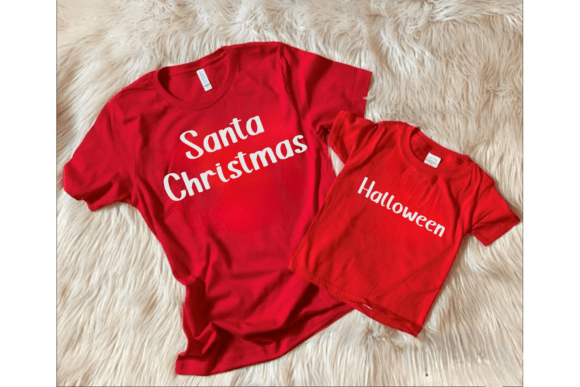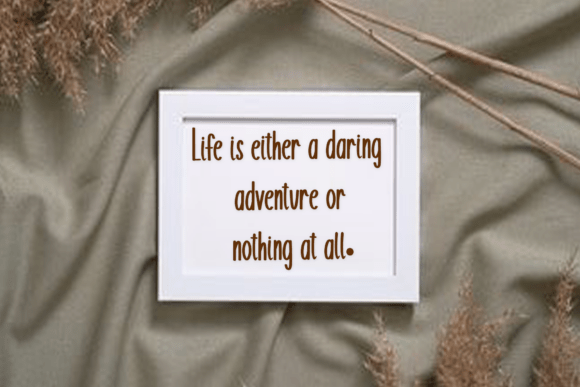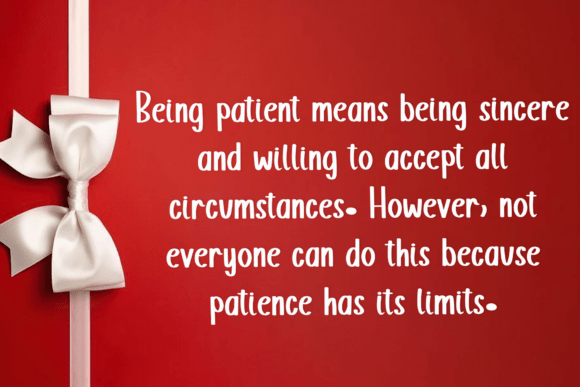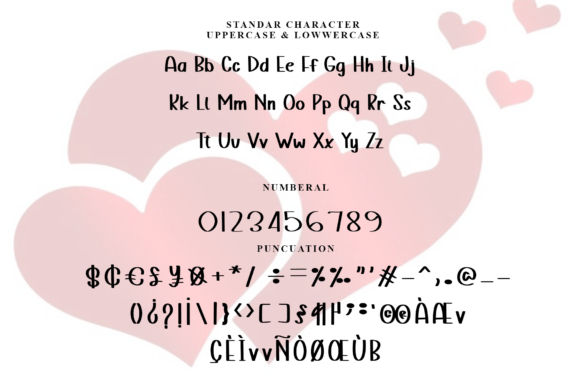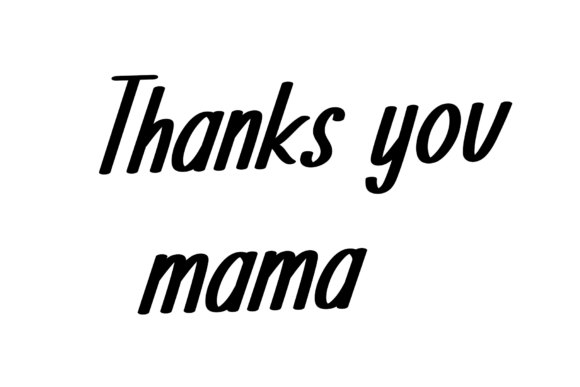
Introducing Boho Christmas Font: The Perfect Blend of Warmth and Personality
Are you looking for a font that can add a personal touch to your designs, invitations, and social media posts? Look no further than the Boho Christmas Font. This casual handwritten font is designed to radiate warmth and personality, making it perfect for designers, crafters, and anyone who wants to add a unique flair to their work.
The Charm of Authentic Handwriting
Boho Christmas Font features smooth strokes, natural curves, and easy-flowing letterforms that capture the charm of authentic handwriting. With its modern, approachable feel, this font is ideal for anyone who wants to add a personal and friendly touch to their designs. Whether you’re creating quotes, invitations, branding materials, or social media posts, Boho Christmas Font is the perfect choice.
Key Features of Boho Christmas Font
- Smooth Strokes: The font features smooth, flowing strokes that give it a natural and effortless look.
- Natural Curves: The curves in Boho Christmas Font are organic and authentic, adding to its handwriting-like feel.
- Easy-Flowing Letterforms: The letterforms are designed to flow easily into each other, creating a sense of movement and fluidity.
- Modern and Approachable: The font has a modern feel that’s approachable and friendly, making it perfect for a wide range of design applications.
Uses for Boho Christmas Font
Boho Christmas Font is a versatile font that can be used in a variety of design applications. Here are some ideas to get you started:
- Quotes: Use Boho Christmas Font to add a personal touch to your quotes and sayings.
- Invitations: Create beautiful and unique invitations for parties, weddings, and other special events.
- Branding: Use Boho Christmas Font to add a personal touch to your branding materials, such as logos, business cards, and brochures.
- Social Media Posts: Add a personal touch to your social media posts and make them stand out from the crowd.
Why Choose Boho Christmas Font?
So why choose Boho Christmas Font over other fonts? Here are just a few reasons:
- Readability: Boho Christmas Font is designed to be easy to read, even at small sizes.
- Charm: The font has a unique charm that’s hard to find in other fonts.
- Versatility: Boho Christmas Font can be used in a wide range of design applications, from quotes and invitations to branding and social media posts.
- Effortless Style: The font has an effortless style that’s perfect for designers who want to create beautiful designs without spending hours agonizing over the details.
Tips for Using Boho Christmas Font
Here are a few tips for using Boho Christmas Font in your designs:
- Pair it with Other Fonts: Boho Christmas Font looks great when paired with other fonts, such as sans serif fonts or script fonts.
- Use it for Headlines: The font is perfect for headlines and titles, where its unique charm can really shine.
- Experiment with Colors: Boho Christmas Font looks great in a variety of colors, from bright and bold to soft and pastel.
- Keep it Simple: Don’t be afraid to keep your design simple and let the font speak for itself.
Boho Christmas Font is a unique and versatile font that’s perfect for designers, crafters, and anyone who wants to add a personal touch to their designs. With its smooth strokes, natural curves, and easy-flowing letterforms, it’s sure to capture the charm of authentic handwriting. Whether you’re creating quotes, invitations, branding materials, or social media posts, Boho Christmas Font is the perfect choice. So why wait? Download Boho Christmas Font today and start adding a personal touch to your designs!